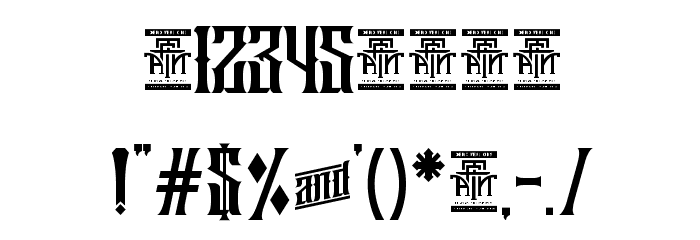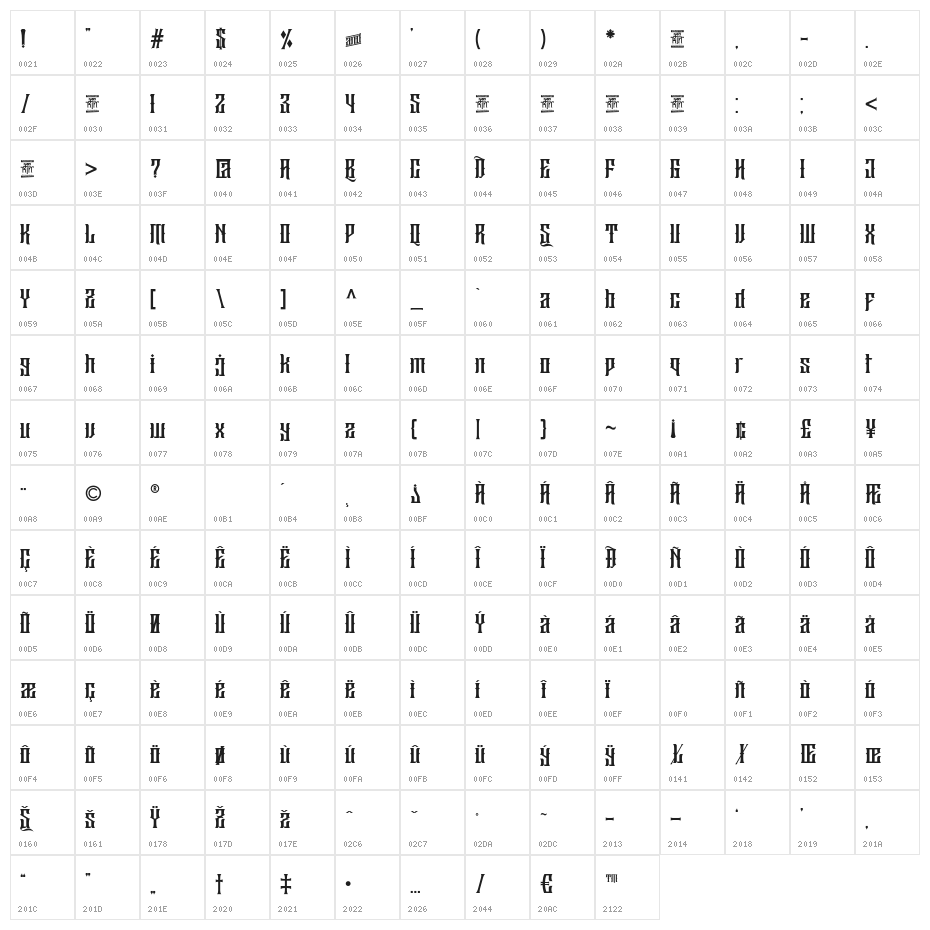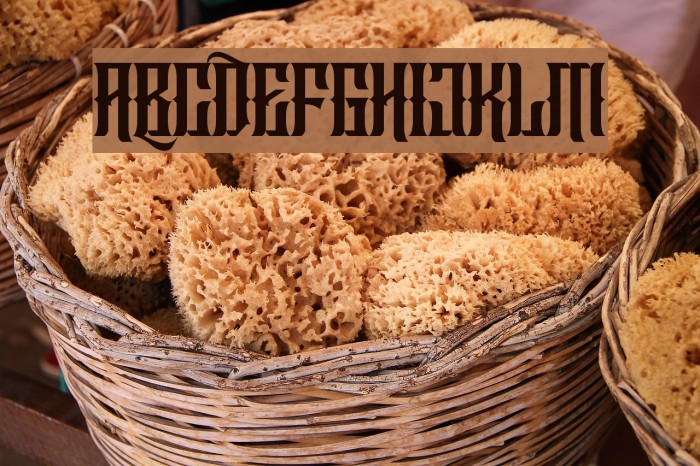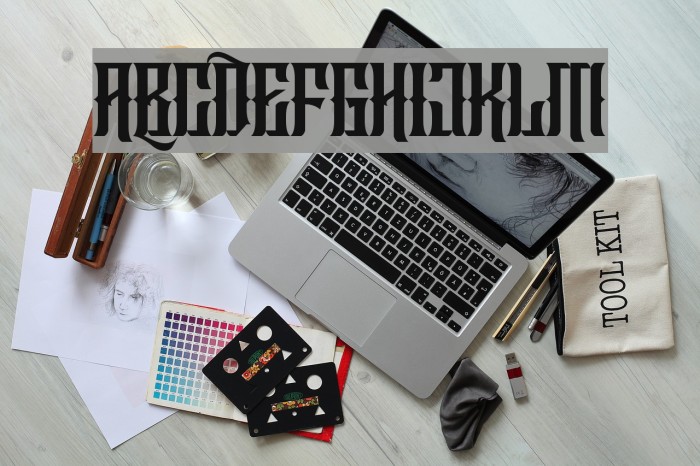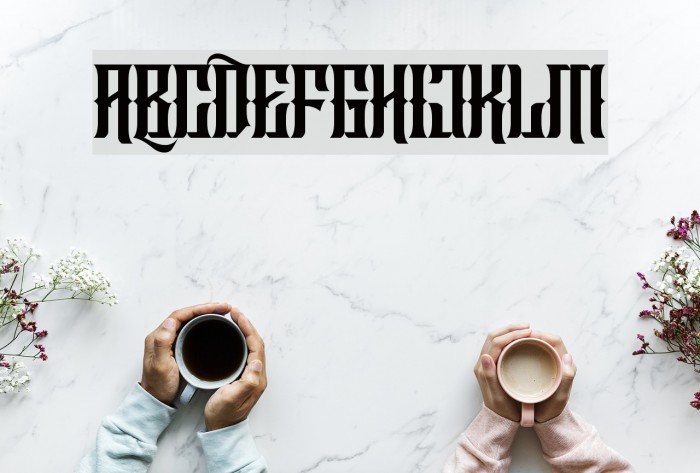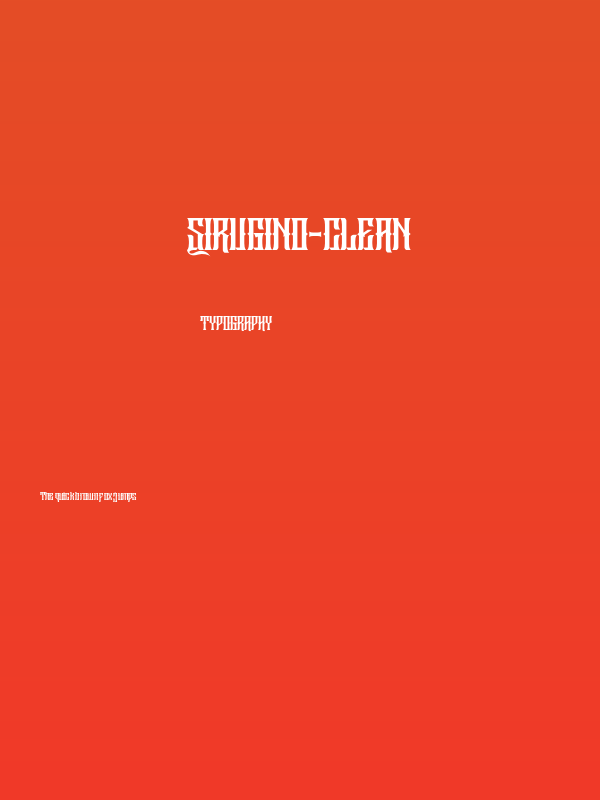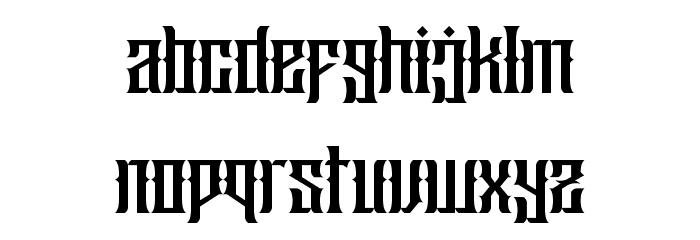
Sirugino-Clean Font
Sirugino-Clean Description
This font features a bold and striking design with a strong blackletter influence. The characters are intricately designed with sharp edges and angular forms, giving it a gothic and medieval appearance. The uppercase and lowercase letters maintain a consistent style, with decorative elements that enhance its dramatic flair. The numbers and special characters follow the same aesthetic, making it suitable for projects that require a distinct and impactful look. The font's unique style is perfect for creating eye-catching headlines, posters, and branding materials that need a touch of historical or vintage charm.
| Proposed Projects | Ideal for posters, branding, album covers, and any project needing a dramatic, historical touch. |